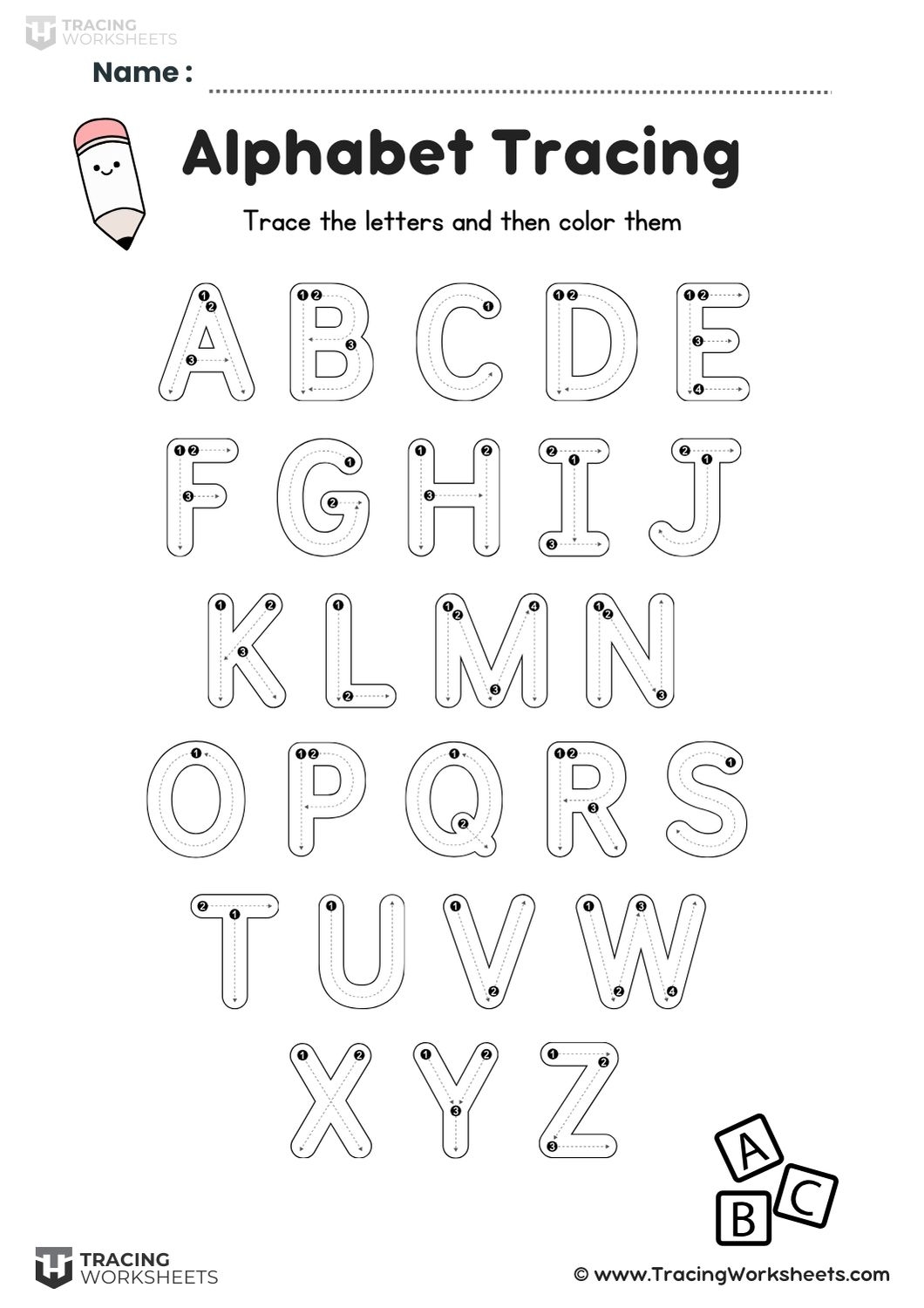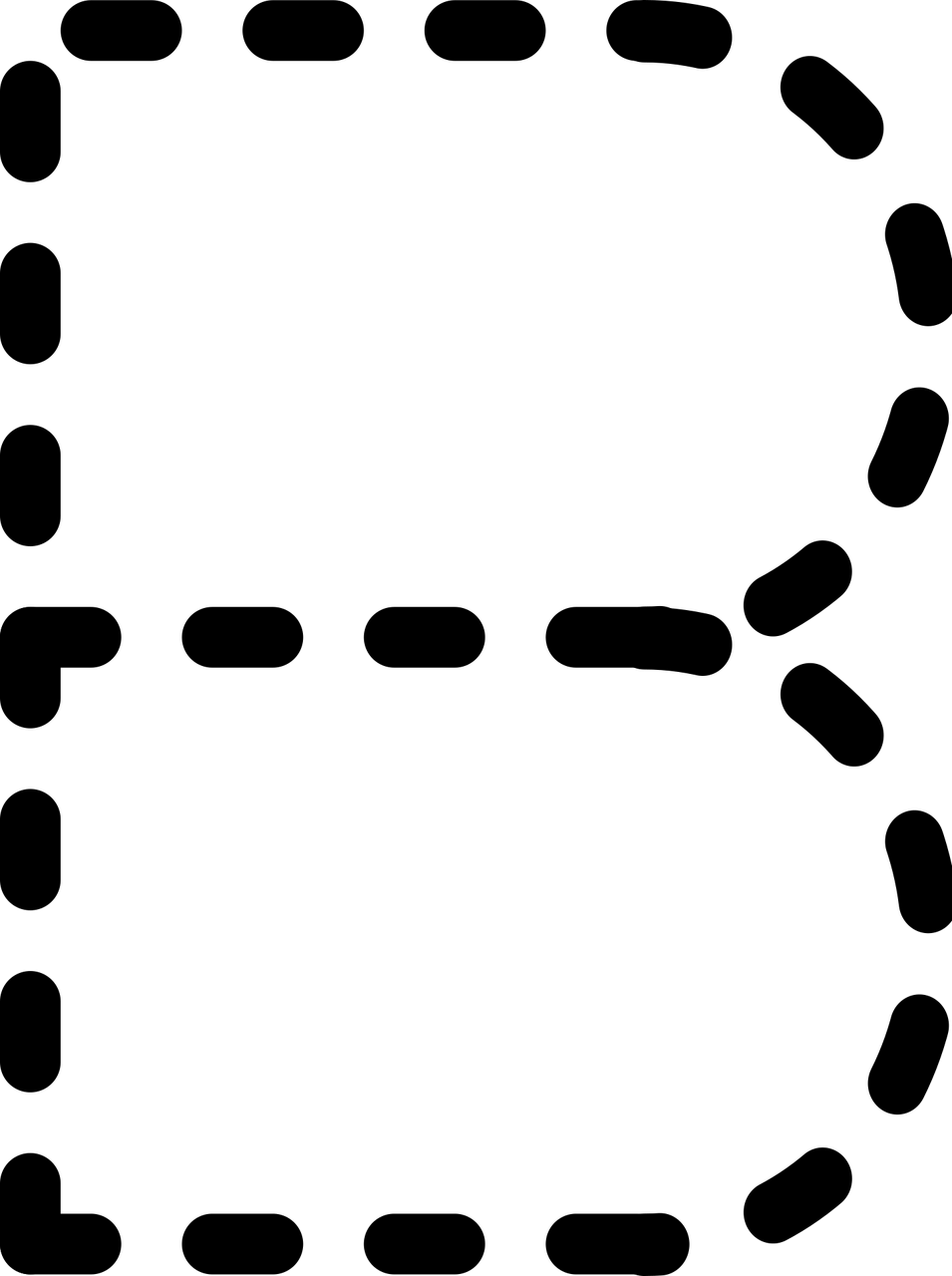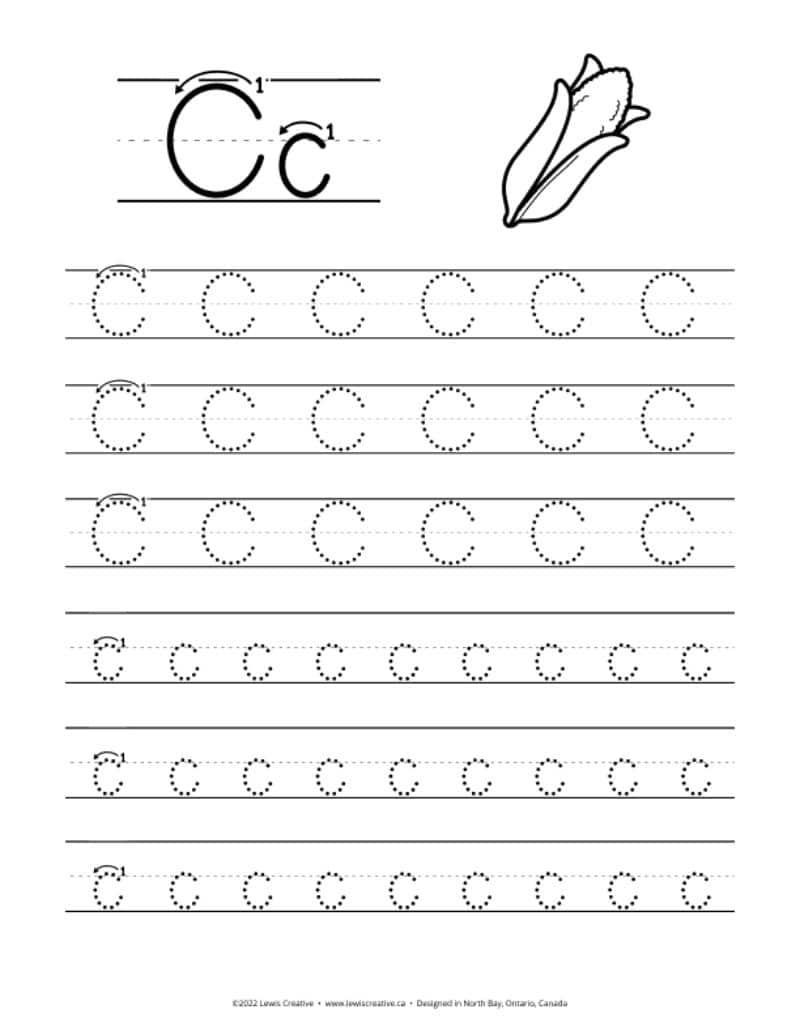
Finding the right tools to help children learn can be a challenge. One effective method is using letter tracing fonts, which make practicing letters fun and engaging for young learners. These fonts are designed to guide children as they develop their writing skills.
When searching for a letter tracing font free download, look for options that offer clear, easy-to-read letters. This clarity helps children understand how to form each letter correctly, boosting their confidence as they practice.
Another important aspect is the variety of styles available. Some fonts mimic handwriting, while others are more playful. Choosing a font that resonates with your child can make learning more enjoyable and encourage them to practice regularly.
Additionally, many websites provide customizable worksheets using these fonts. This feature allows you to create tailored practice sheets that focus on specific letters or words, catering to your child’s unique learning needs.
Incorporating letter tracing fonts into your child’s routine can significantly enhance their writing skills. With a little creativity and the right resources, learning to write can become an exciting adventure for them.
Exploring letter tracing font free download options opens up a world of possibilities for young learners. By providing engaging materials, you can help foster a love for writing that lasts a lifetime.